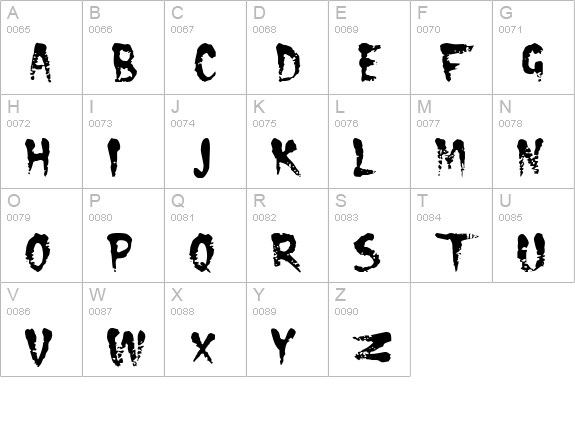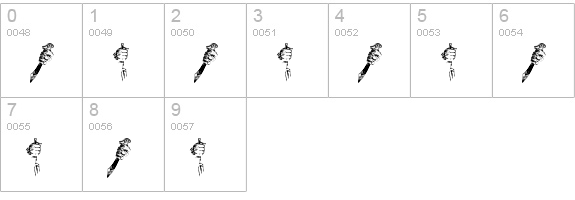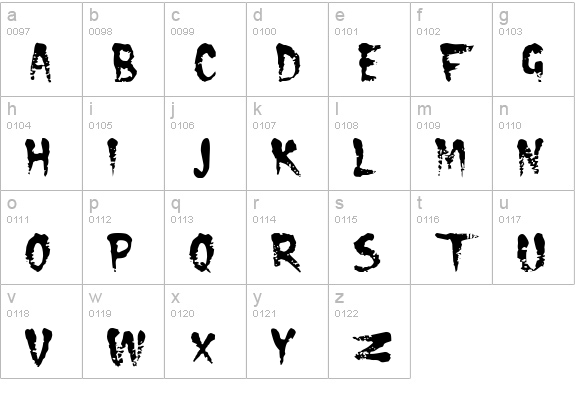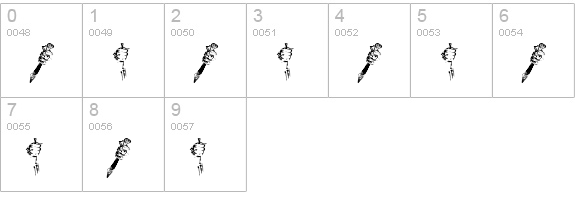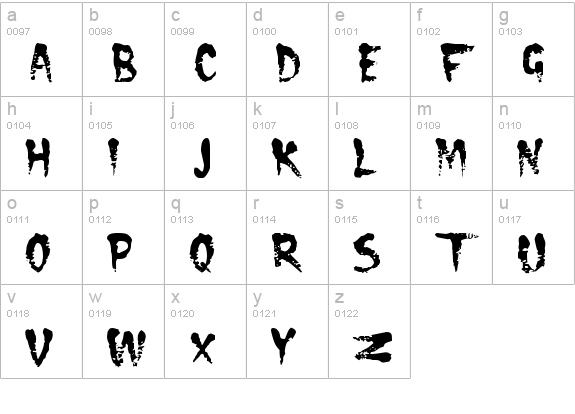
CRAMPS Font Details
Introducing CRAMPS font, a modern and edgy typeface that is sure to make your designs stand out. With its unique and bold characters, CRAMPS font is perfect for adding a touch of creativity to your projects. Whether you're designing posters, logos, or social media graphics, this font will capture attention and make a lasting impression. What's even better is that CRAMPS font is completely free to download at FontsMarket.com. Yes, you read that right - you can get your hands on this stylish font without spending a dime. So why wait? Add CRAMPS font to your collection today and let your creativity shine!